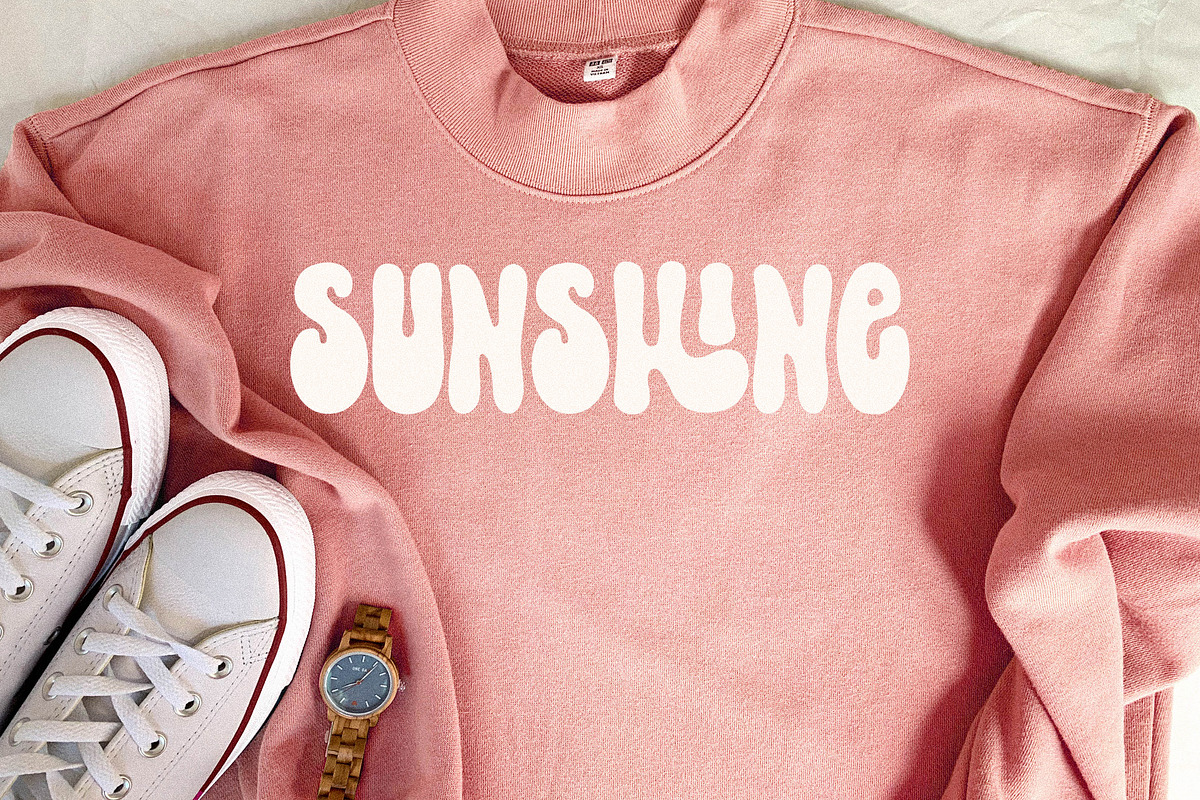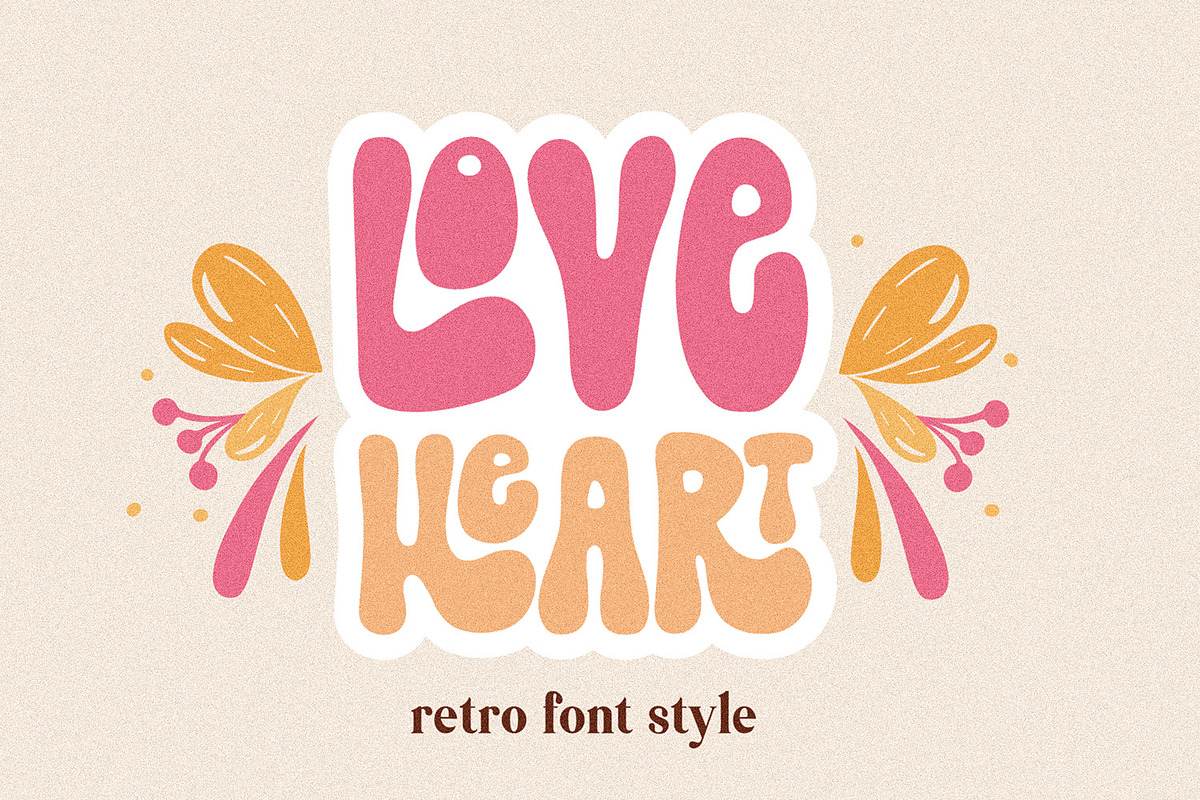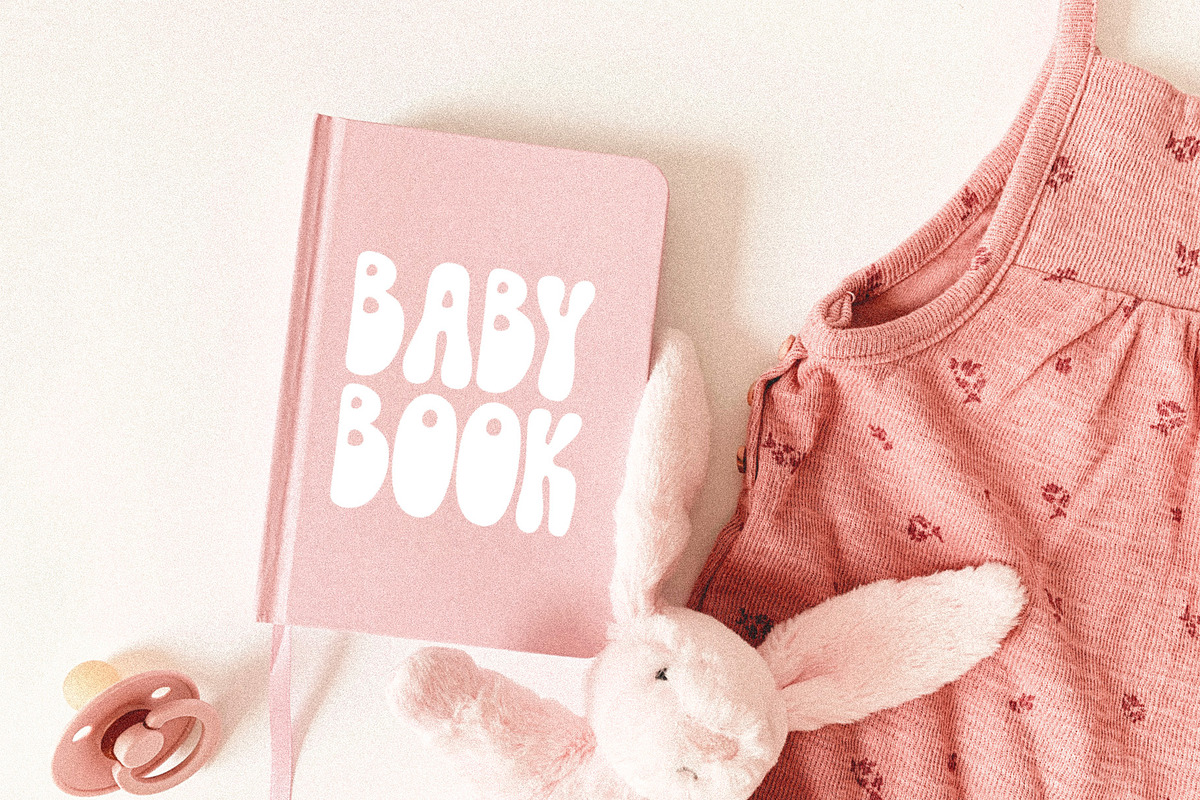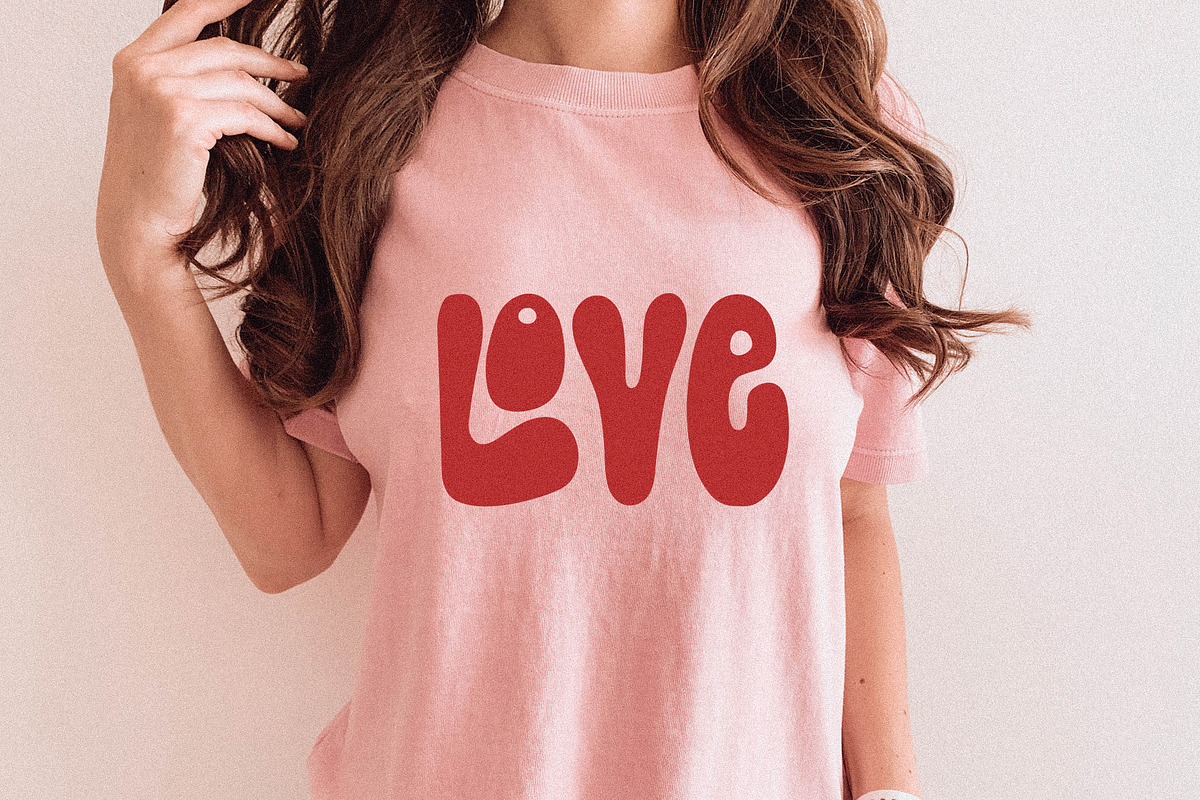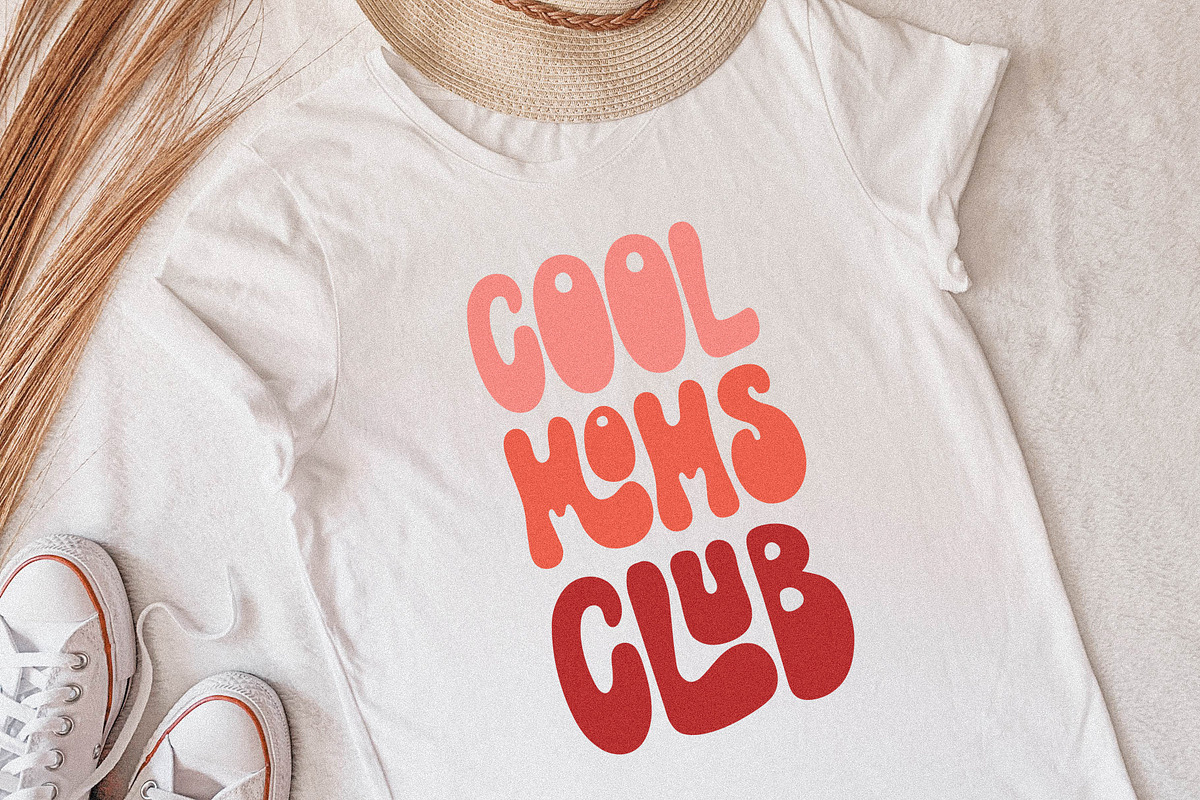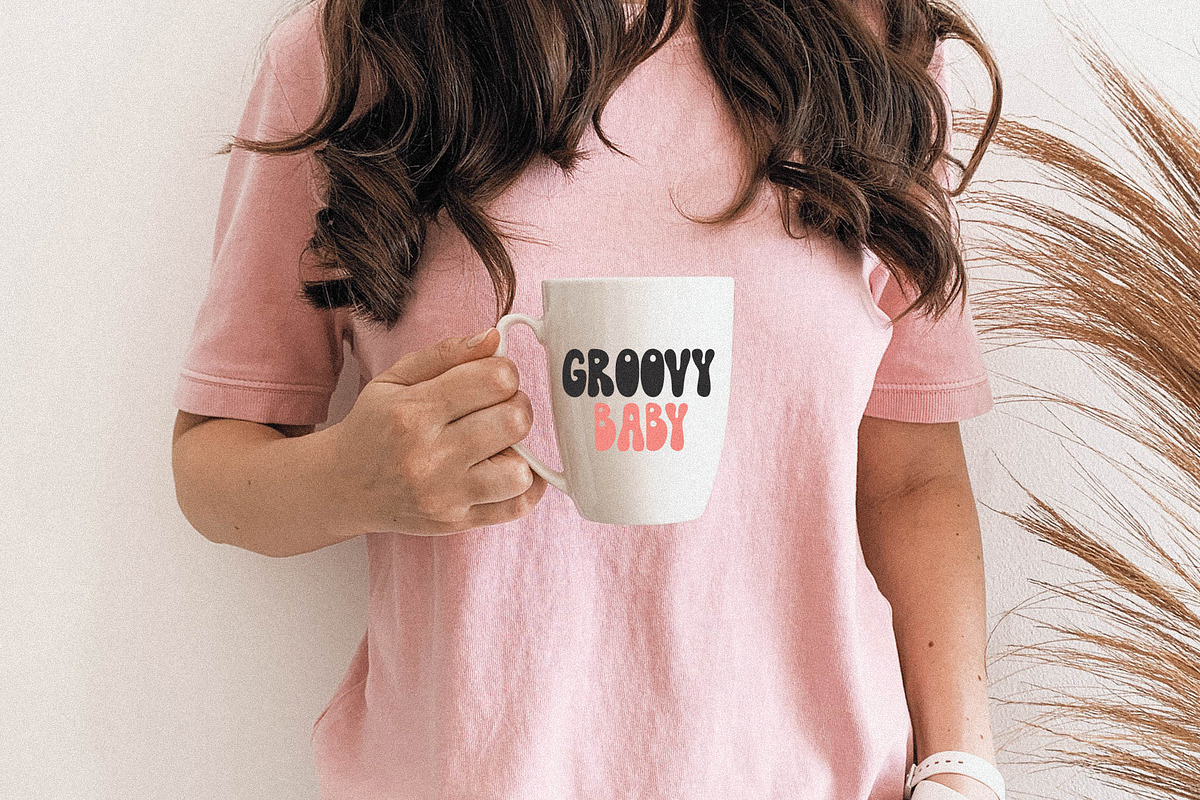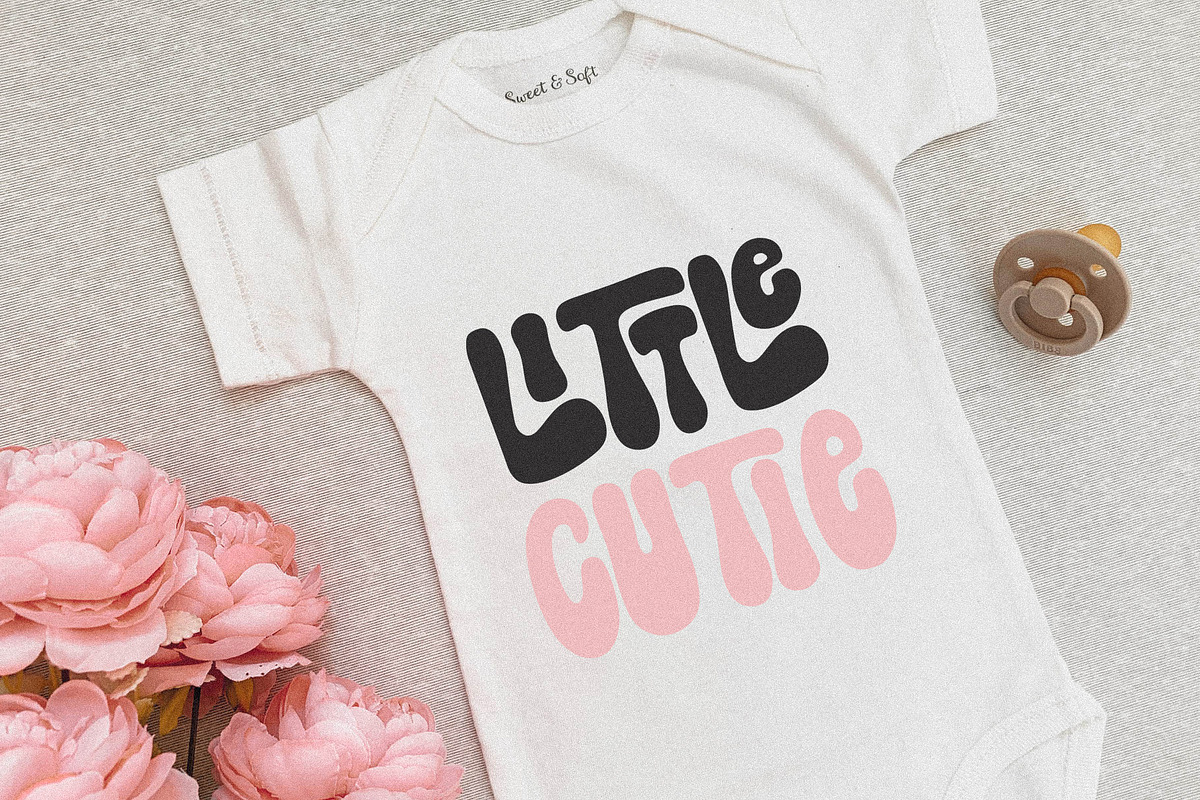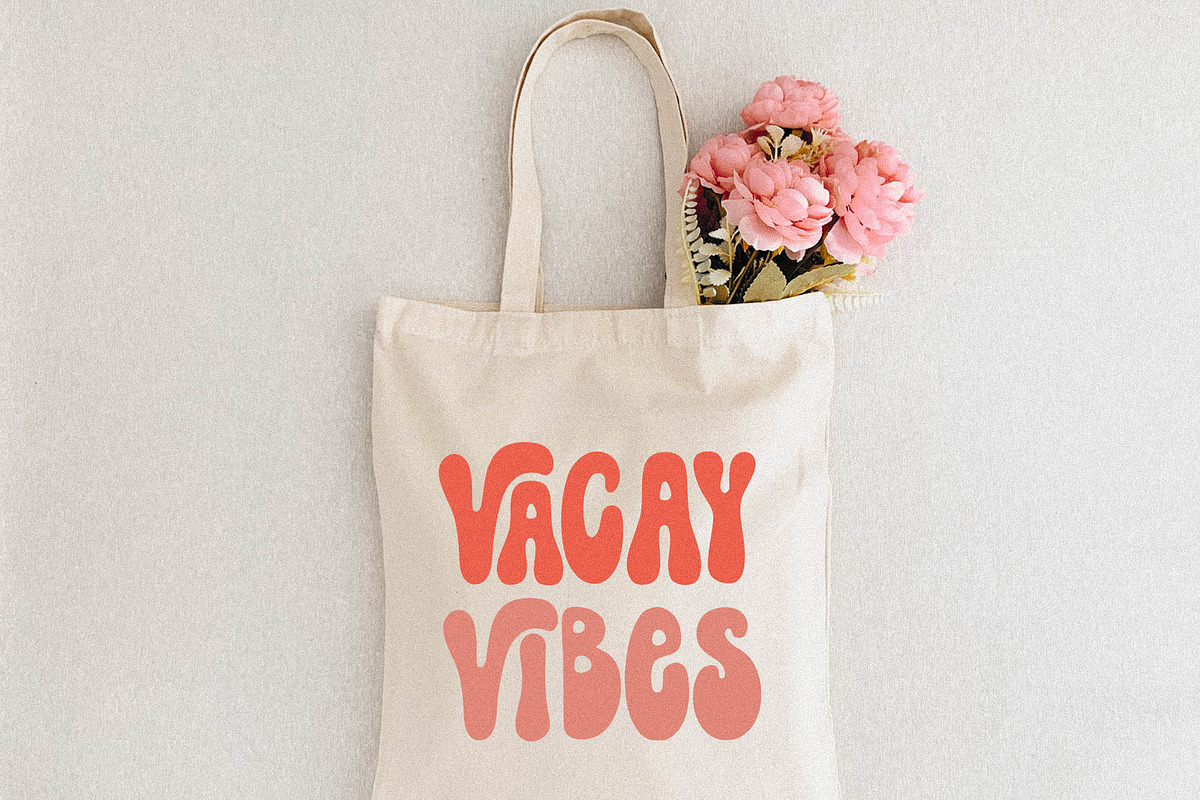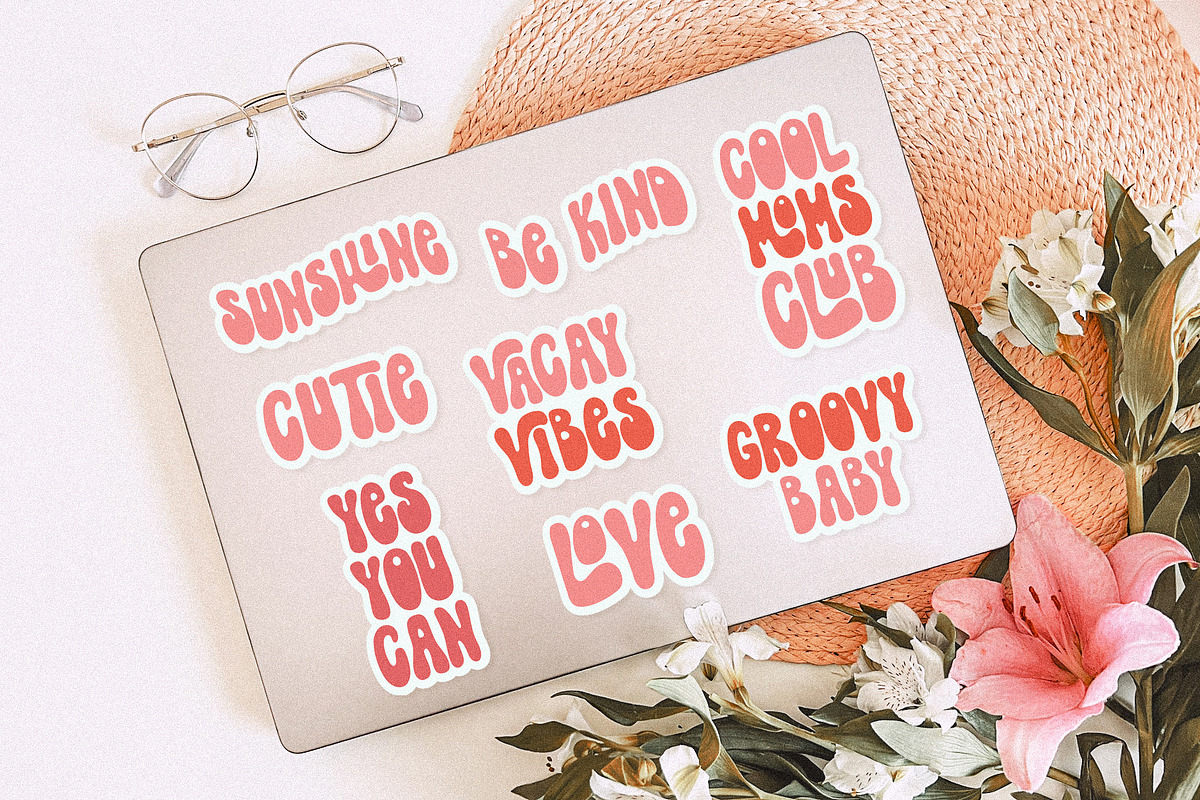
Love Heart Lovely Groovy Font
Love Heart a cute retro handwritten font. Perfect to create stickers, quotes, t-shirt designs, mug designs, baby svg onesie projects, cricut projects, sublimation designs and svg files.